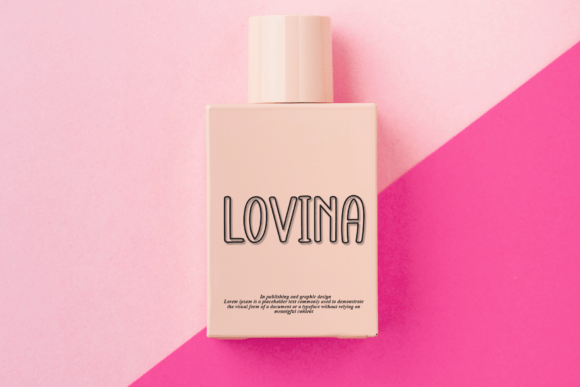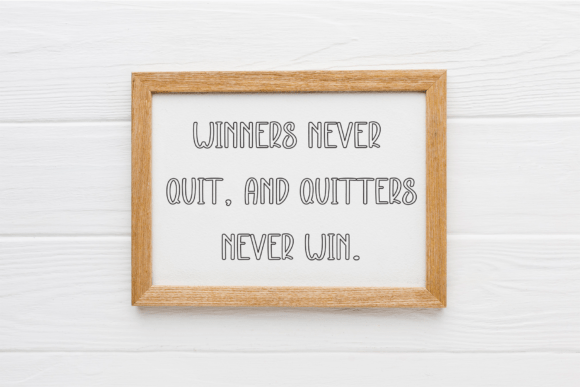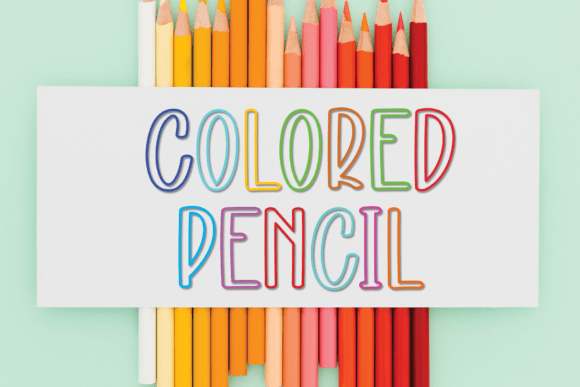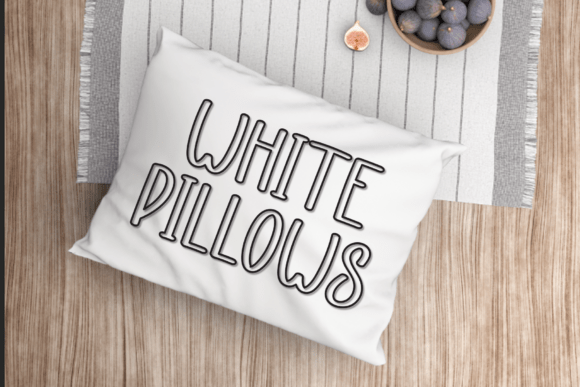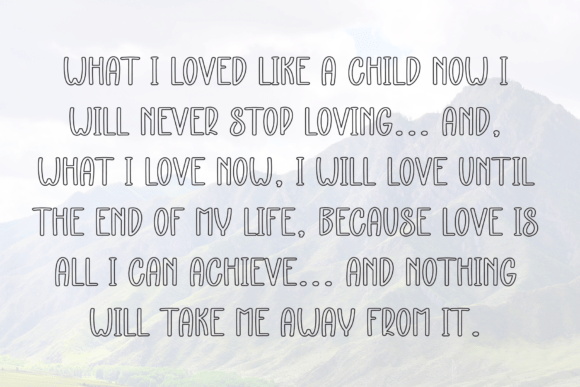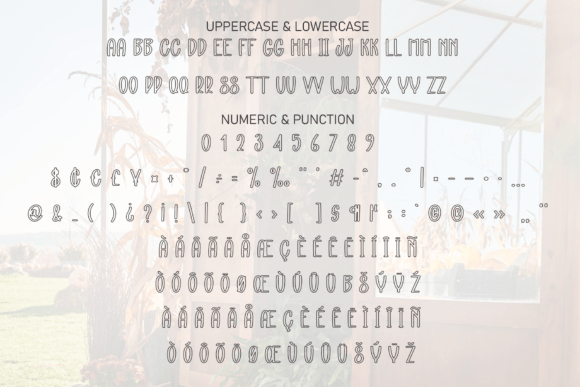
The Creative Farmhouse Font: A Perfect Blend of Style and Readability
I’ll never forget the design project that led me to discover the Creative Farmhouse font. I was working on a branding campaign for a crafty client who specialized in handmade home decor. The goal was to create a warm and inviting visual identity that reflected the client’s laid-back, yet stylish personality. As I scrolled through font after font, I couldn’t shake the feeling that something was missing. That was until I stumbled upon Creative Farmhouse – a neat and casual display font that instantly clicked with me.
- ✨ Clean lines and friendly letterforms: This font boasts a beautiful balance of modernity and approachability, making it perfect for headlines, posters, packaging, and branding.
- ✅ Excellent readability: Even at smaller sizes, Creative Farmhouse remains clear and easy to read, which is a major win for any design project.
- 💡 Playful energy: This font has a subtle playfulness that adds personality to any project without overwhelming the message.
Of course, no font is perfect, and Creative Farmhouse has a few minor quirks to consider:
- 🤔 Limited suitability for body text: While Creative Farmhouse is amazing for headlines and titles, it may not be the best choice for longer blocks of text.
- ⚠️ Some glyphs may require manual adjustment: Depending on your design software, you might need to tweak certain glyphs to get the most out of this font.
The Story Behind Creative Farmhouse
While the actual origins of Creative Farmhouse are unknown, it’s easy to imagine a designer inspired by the rolling hills and rustic charm of a countryside farm. Perhaps they aimed to capture the warmth and approachability of a handwritten sign, combined with the clarity of a modern sans-serif. Whatever the inspiration, the result is a font that’s both stylish and down-to-earth.
| Is Creative Farmhouse suitable for body text? | While it’s primarily designed for headlines and titles, Creative Farmhouse can work for short paragraphs, but may not be ideal for longer blocks of text. |
| Does Creative Farmhouse support OpenType features? | Yes, this font supports various OpenType features, including ligatures, stylistic alternates, and glyphs, which can enhance your design. |